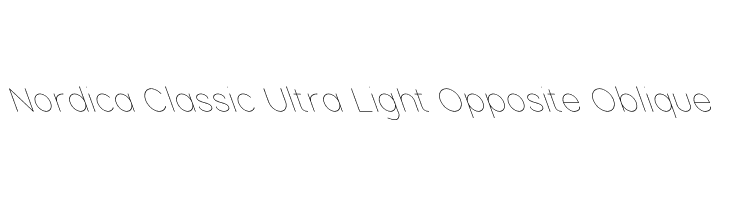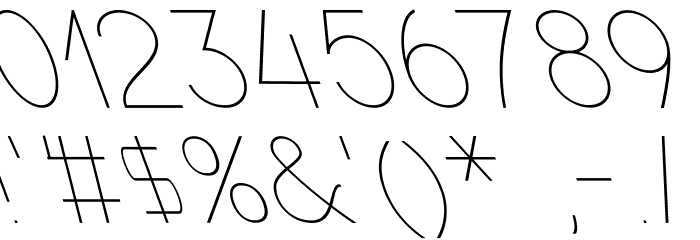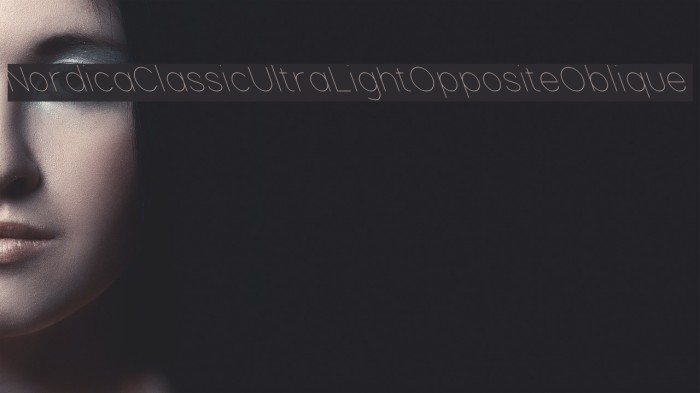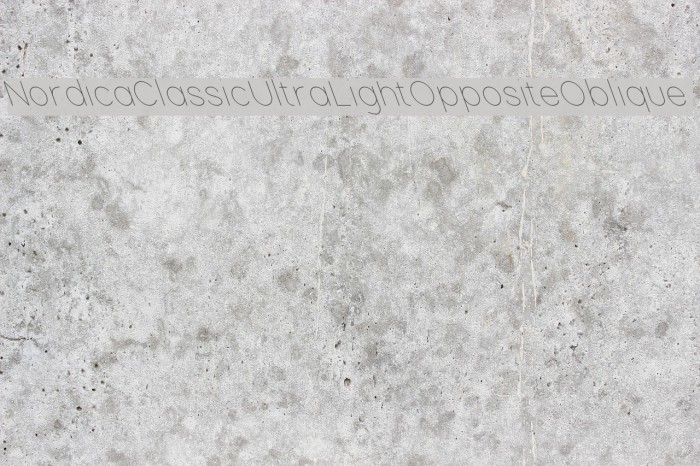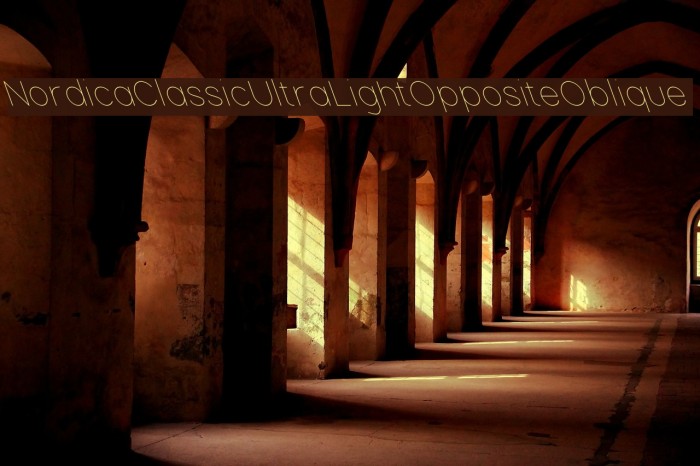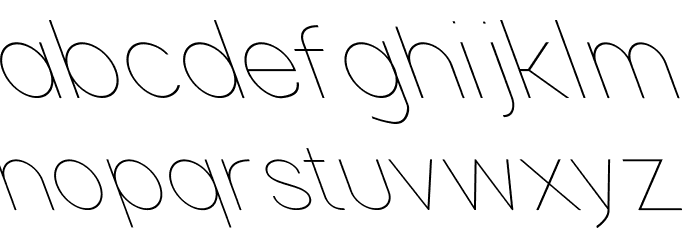
Nordica Classic Ultra Light Opposite Oblique Font
This font exhibits a sleek and modern design with ultra-light strokes that give it an airy and elegant appearance. The characters are slightly oblique, adding a dynamic and forward-moving feel. The uppercase and lowercase letters maintain a consistent style, with clean lines and minimalistic curves. The numerals and special characters are designed to match the overall aesthetic, ensuring uniformity across all elements. This font's simplicity and clarity make it versatile for various design applications.
A modern, ultra-light, oblique font with clean lines and minimalistic curves.